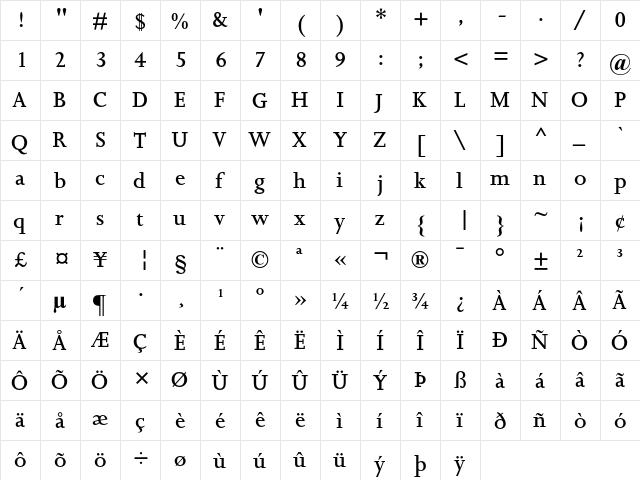
Joanna Semi Bold
Design Context for Joanna Typeface
Joanna is a composed and adaptable typeface that performs quietly and consistently across a wide range of design contexts. Its bold stroke weight gives it real presence on the page.
Pro Tip: Use Joanna in both headline and body roles to test its range before committing to a single application.